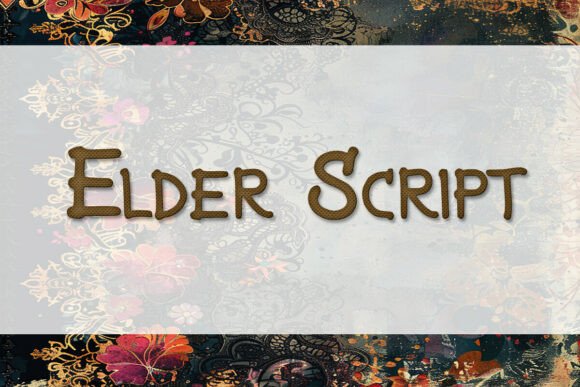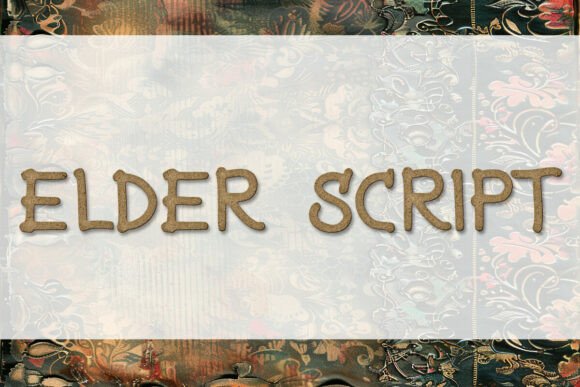
Unleash the Timeless Charm of the Elder Script Font
Step into a world of ancient legends with the Elder Script font, a rustic, hand-hewn display typeface that feels as though it was carved from stone or ancient bark. This exquisite font is designed to evoke a sense of history and wisdom, making it the perfect choice for a variety of creative projects that require a grounded, timeless voice.
The Characteristics of Elder Script
The Elder Script typeface features a beautiful, weathered texture and organic, slightly irregular forms that give it a unique, handcrafted feel. The font’s rustic charm is reminiscent of ancient stone carvings or worn wooden signs, adding a touch of authenticity to any design. The tactile, “carved” appearance of Elder Script makes it an ideal choice for projects that require a sense of history and tradition.
Perfect Applications for Elder Script
The Elder Script font is incredibly versatile and can be used in a wide range of applications, including:
- Fantasy Book Covers: Add a touch of magic to your book covers with the Elder Script font, perfect for fantasy, historical fiction, or mythology-inspired stories.
- Museum Branding: Create a sense of history and sophistication with Elder Script, ideal for museum logos, signage, and marketing materials.
- Nature-Inspired Product Packaging: Bring a touch of the outdoors to your product packaging with Elder Script, perfect for artisanal woodworkers, herbalists, or eco-friendly brands.
- Signage in Botanical Gardens: Guide visitors through the gardens with elegant, hand-hewn signs that evoke a sense of history and wonder.
- Historical Documentaries: Add a touch of authenticity to your title sequences with the Elder Script font, perfect for documentaries about history, mythology, or the natural world.
Design Pairings for Elder Script
The Elder Script font pairs exceptionally well with rich, textured backgrounds and earthy color palettes, including:
- Earth Tones: Combine Elder Script with earthy colors like terracotta, sienna, and moss green to create a warm, natural look.
- Rich Textures: Pair Elder Script with textured backgrounds like wood, stone, or parchment to add depth and tactility to your design.
- Nature-Inspired Patterns: Combine Elder Script with nature-inspired patterns like leaves, branches, or flowers to create a cohesive, organic look.
Branding and Crafting with Elder Script
The Elder Script font is perfect for crafters and designers who want to add a touch of authenticity to their brand or product. Whether you’re creating a logo for a tarot reader, herbalist, or spiritual coach, or designing a label for an artisanal woodworker or mystical tabletop game, Elder Script provides an unforgettable, old-world charm that’s sure to captivate your audience.
Perfect For:
The Elder Script font is ideal for:
- 🌙 Mystical Branding: Logos for tarot readers, herbalists, and spiritual coaches.
- 🎃 Hallow: Create a spooky, mystical atmosphere with Elder Script, perfect for Halloween-themed designs or branding.
- Artisanal Branding: Add a touch of handmade charm to your brand with Elder Script, perfect for artisanal woodworkers, craft brewers, or small-batch food producers.
In conclusion, the Elder Script font is a versatile, rustic typeface that’s perfect for designers and crafters who want to add a touch of history and authenticity to their projects. With its weathered texture, organic forms, and tactile appearance, Elder Script is sure to evoke a sense of wonder and timelessness in any design.